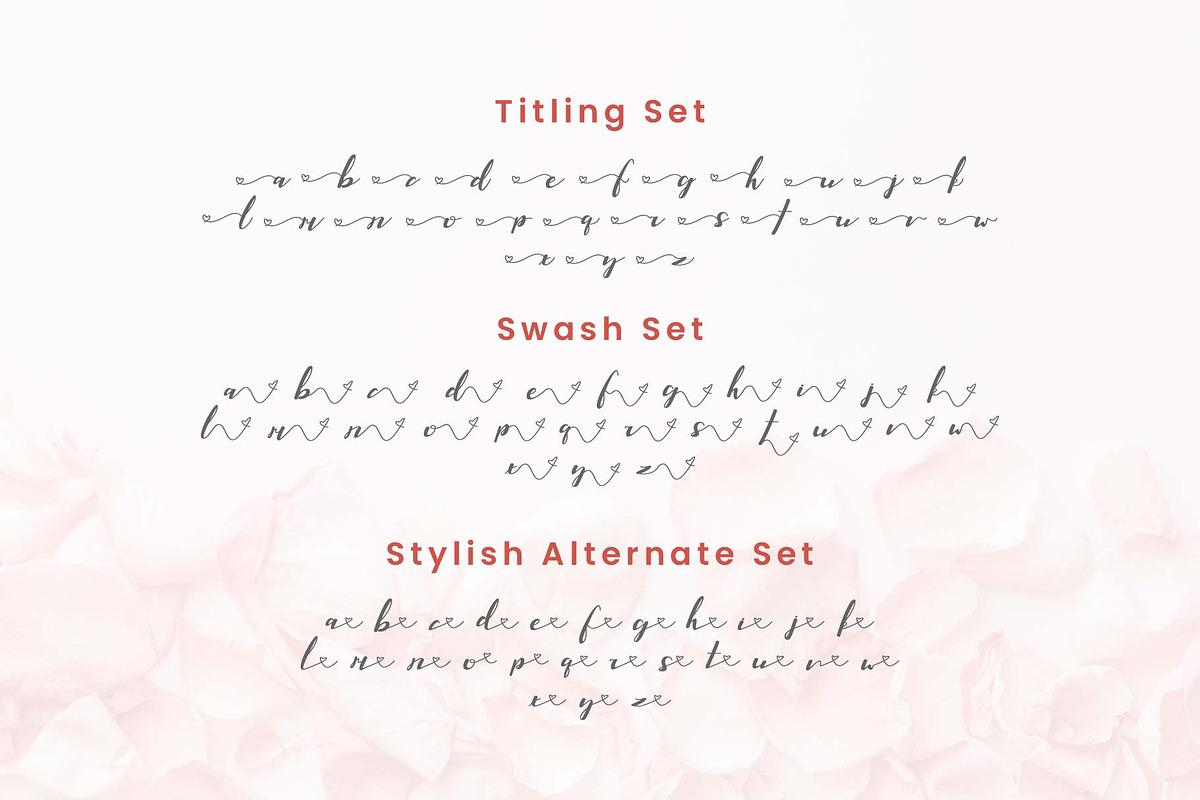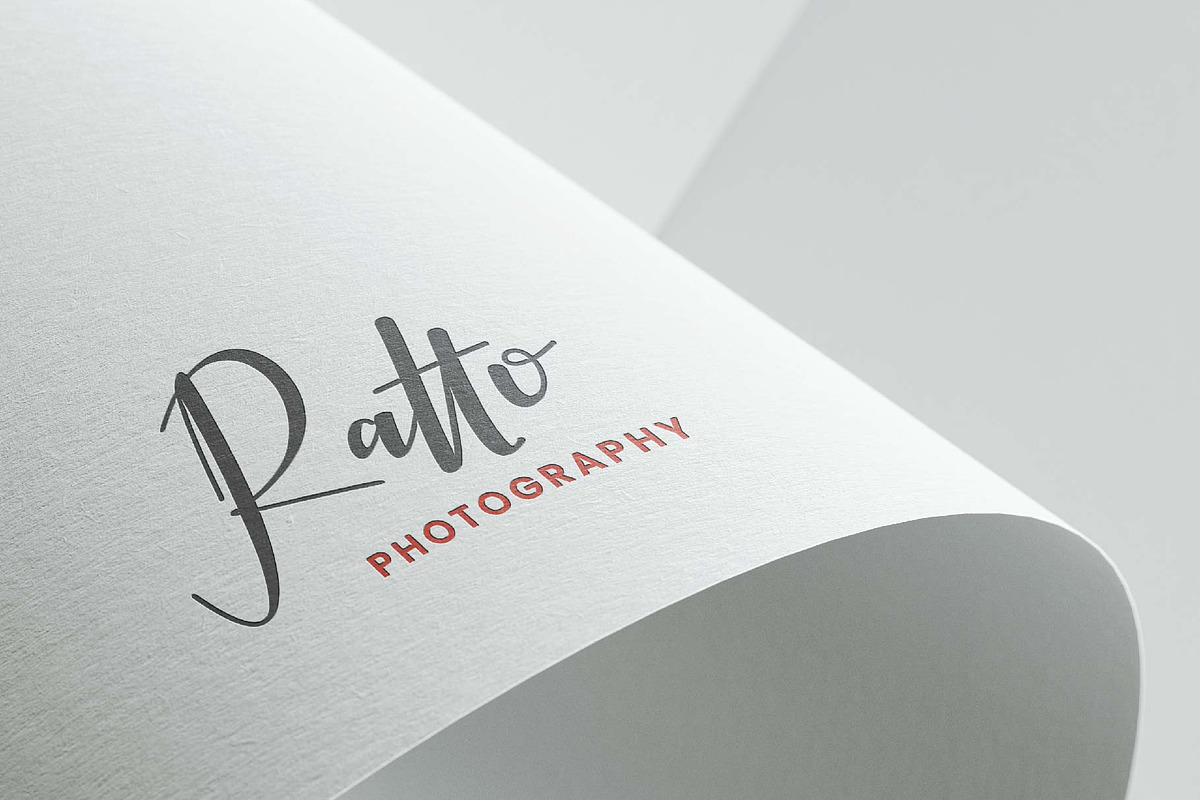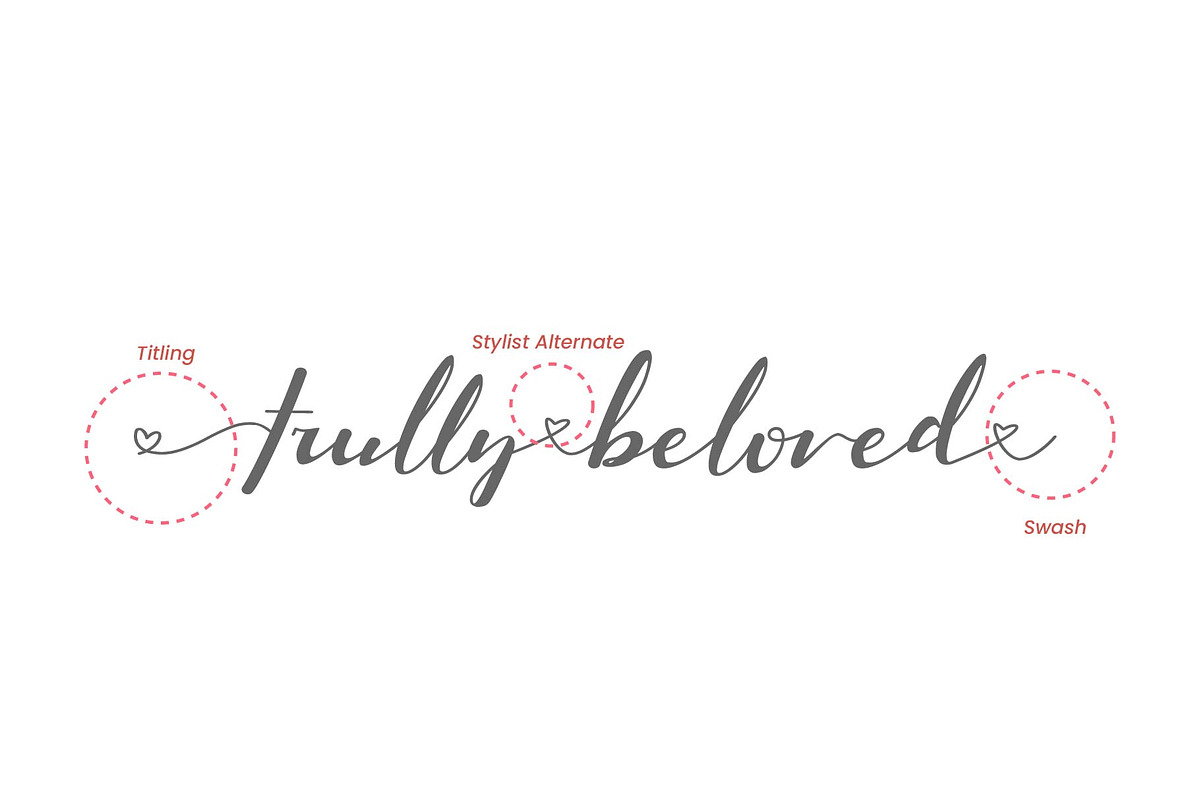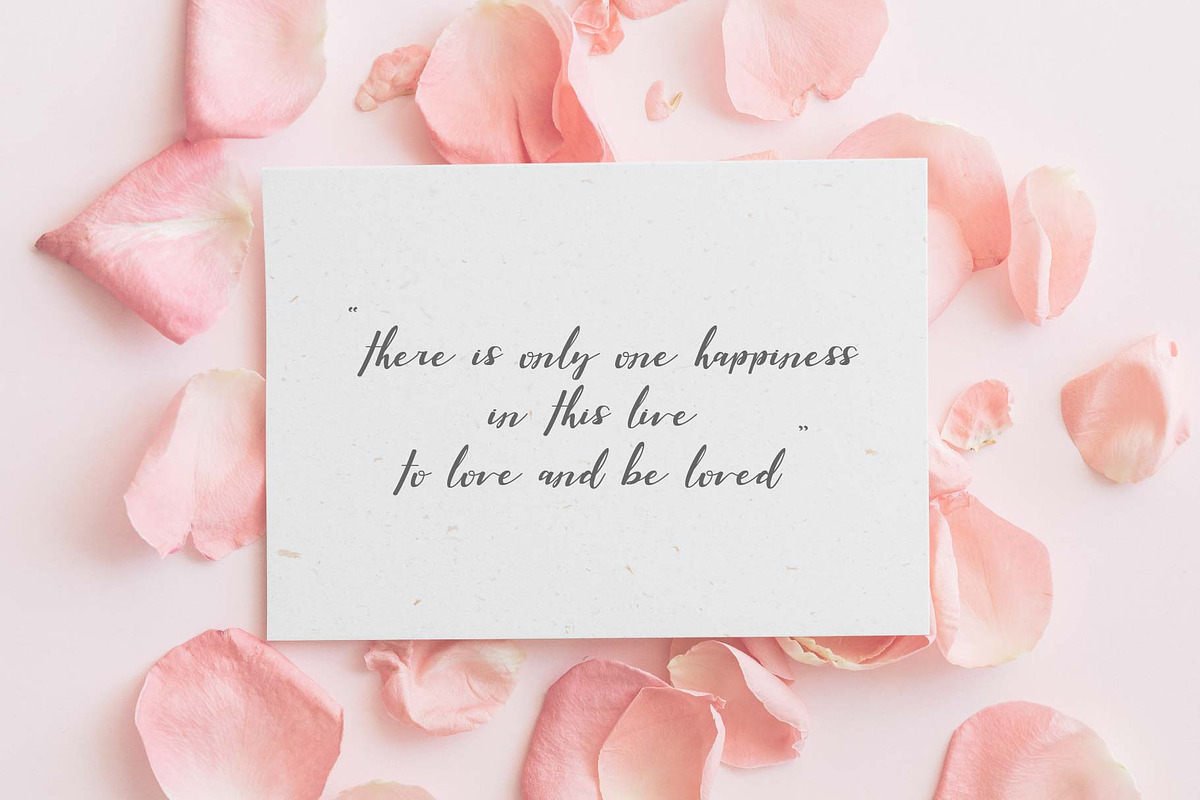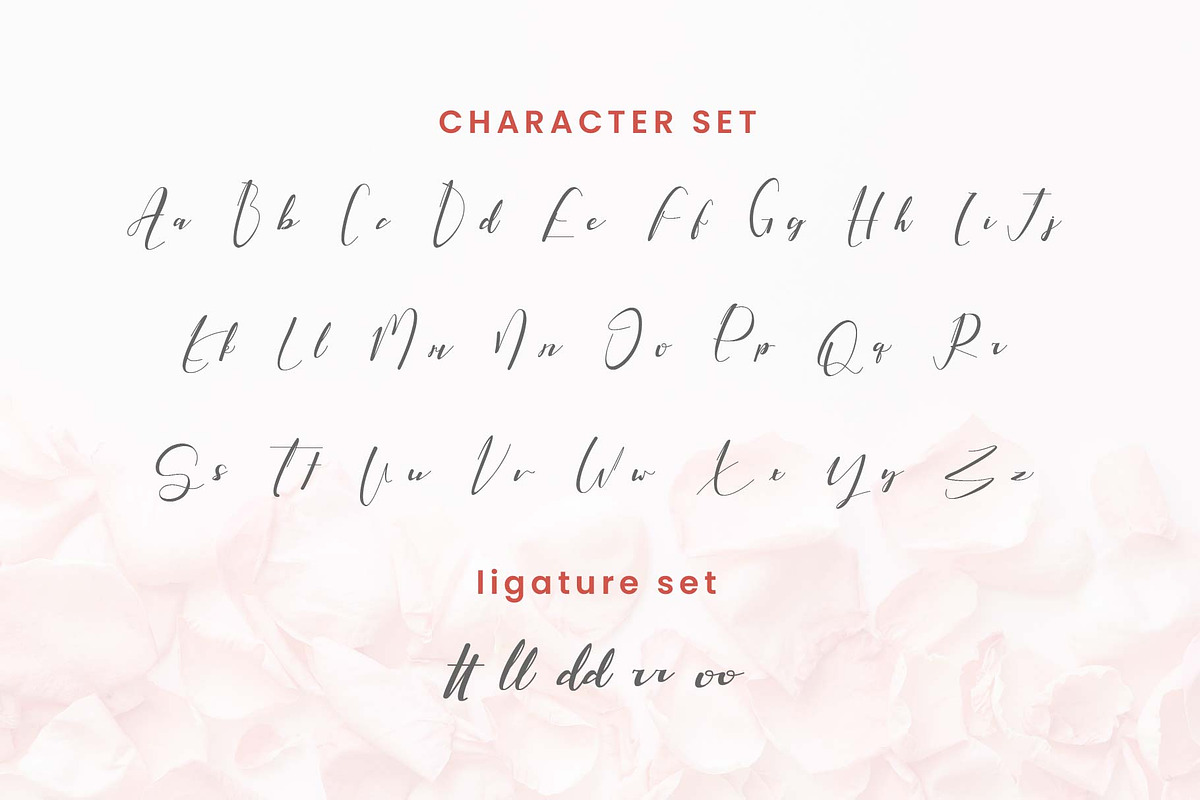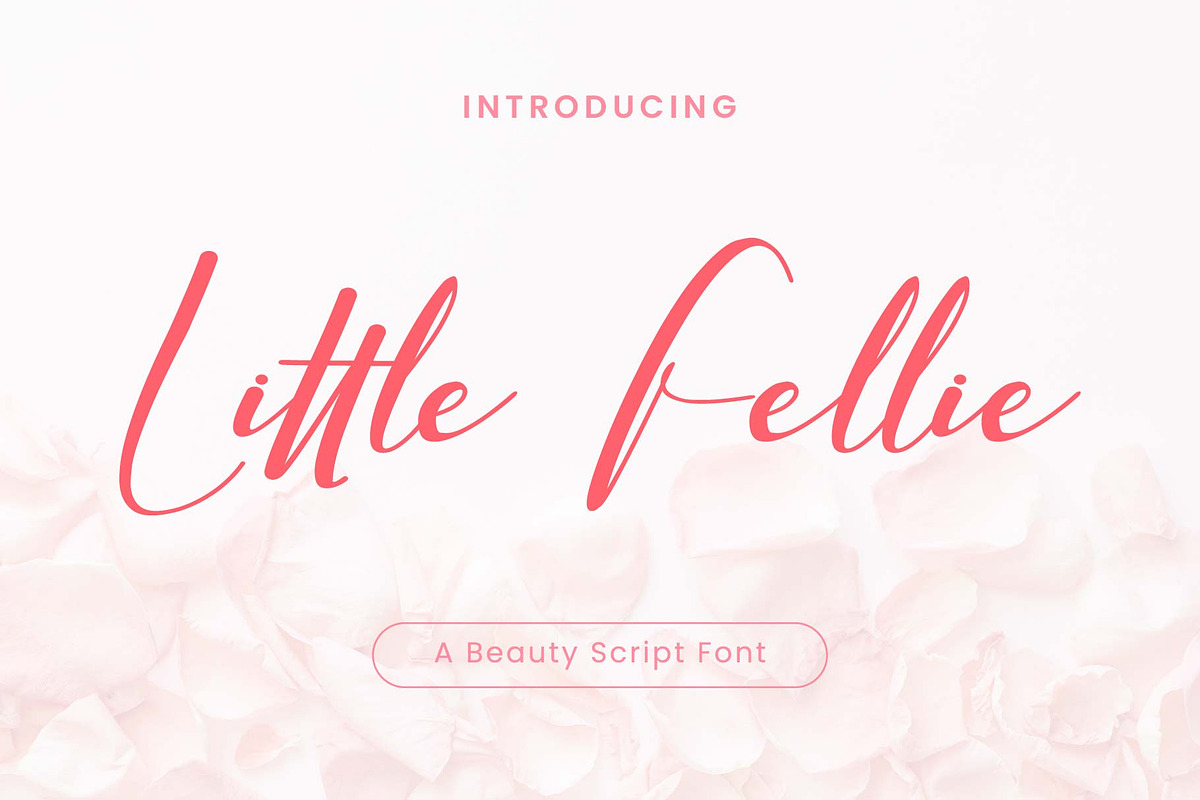
Little Fellie
Little Felie is a beauty script font. Made with love, create a sweet touch in every need for the project you create with this font. This font is inspired by valentine theme.
- Stylish Alternate
- Titling